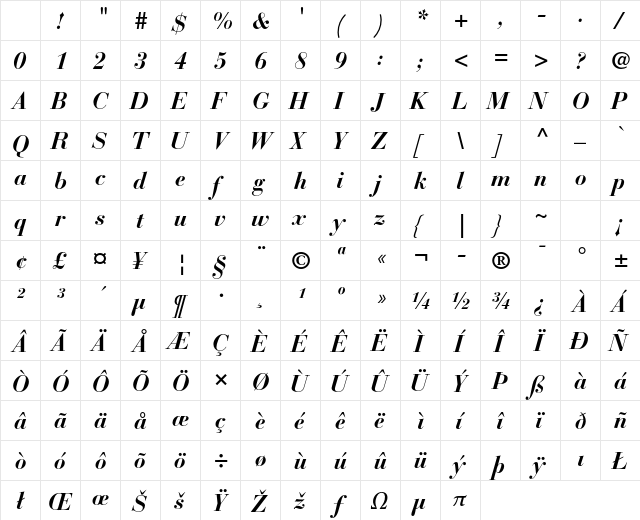
Bauer Bodoni Std 1 Bold Italic
Designer: Heinrich Jost, Louis H￿ll
Complete Bauer Bodoni Std 1 Bold Italic glyph index. Displaying only characters natively supported by Bauer Bodoni Std 1 Bold Italic font.
Design Context for Bauer Bodoni Std 1
Bauer Bodoni Std 1 is a composed and adaptable typeface that performs quietly and consistently across a wide range of design contexts. The slanted form adds forward momentum and visual energy. Its bold stroke weight gives it real presence on the page.
Pro Tip: Use Bauer Bodoni Std 1 for emphasis, pull quotes, and subheadings where its slanted energy can add rhythm to the layout.